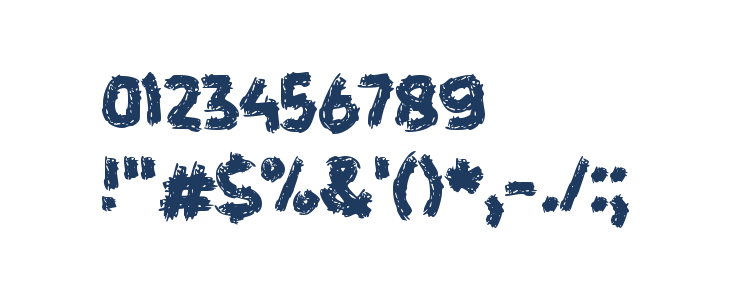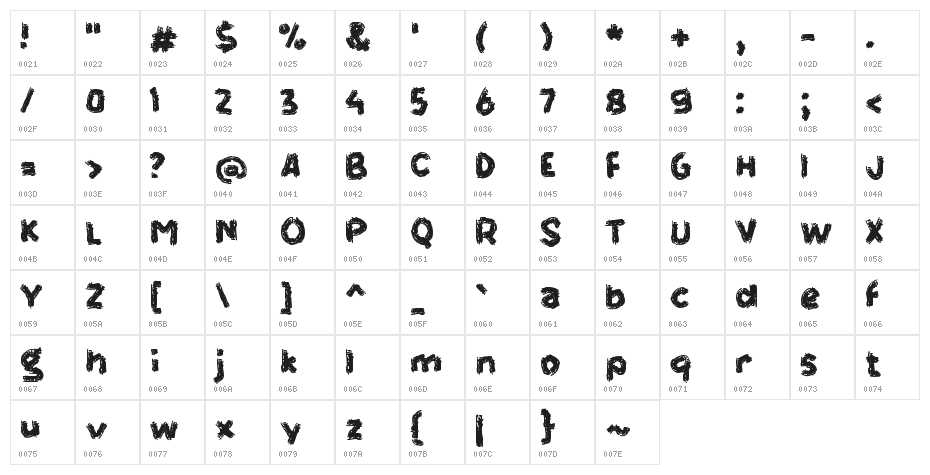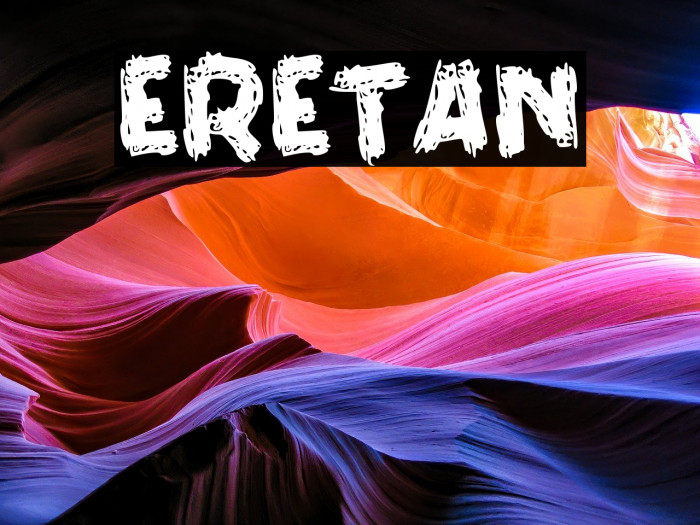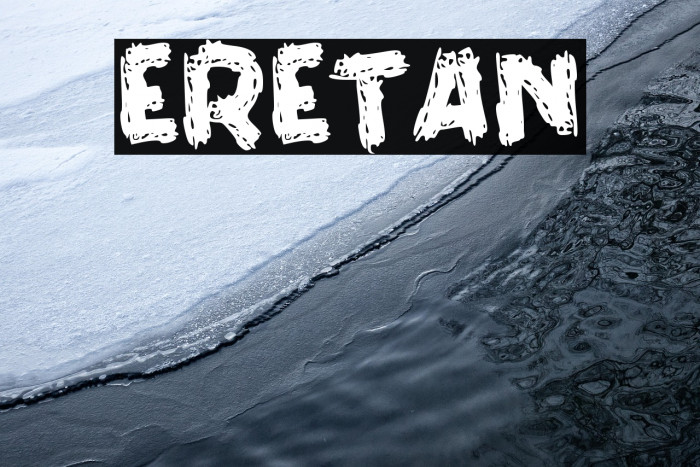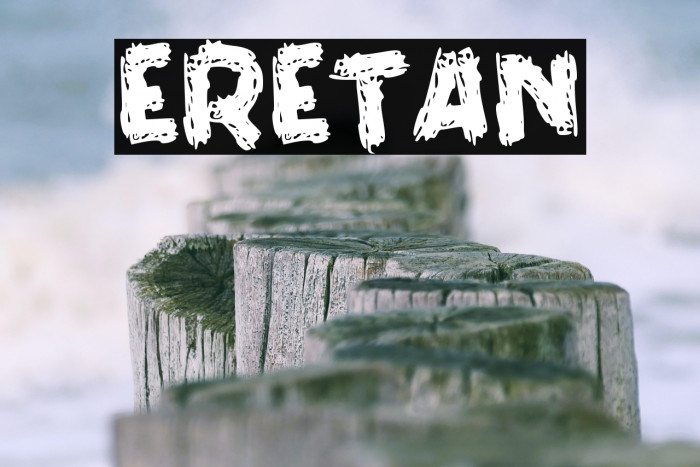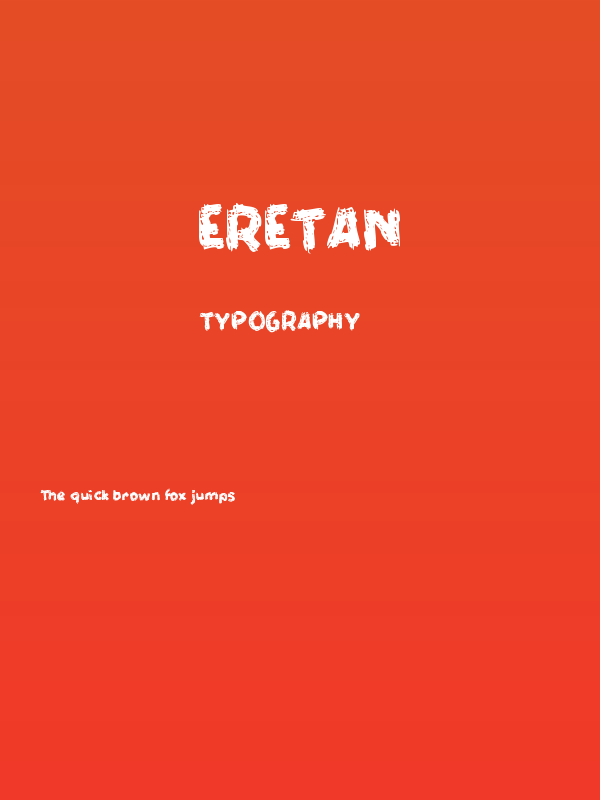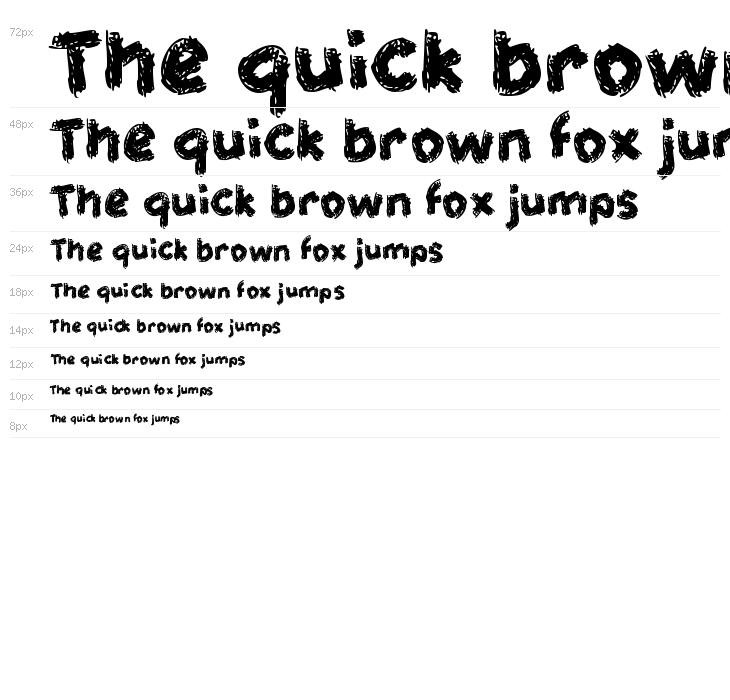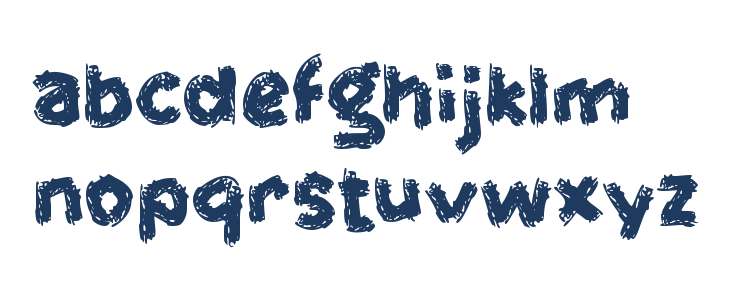
ERETAN Font
ERETAN Description
This font features a bold, hand-drawn style with a rough, textured appearance. The characters are irregular and have a playful, artistic vibe, reminiscent of graffiti or chalkboard writing. The strokes are thick and uneven, giving it a dynamic and energetic feel. It's designed to stand out and capture attention, making it ideal for creative and informal projects. The font includes a full set of uppercase and lowercase letters, numbers, and a variety of special characters, all maintaining the same rugged aesthetic.
| Proposed Projects | Ideal for posters, album covers, street art designs, and creative branding projects. |